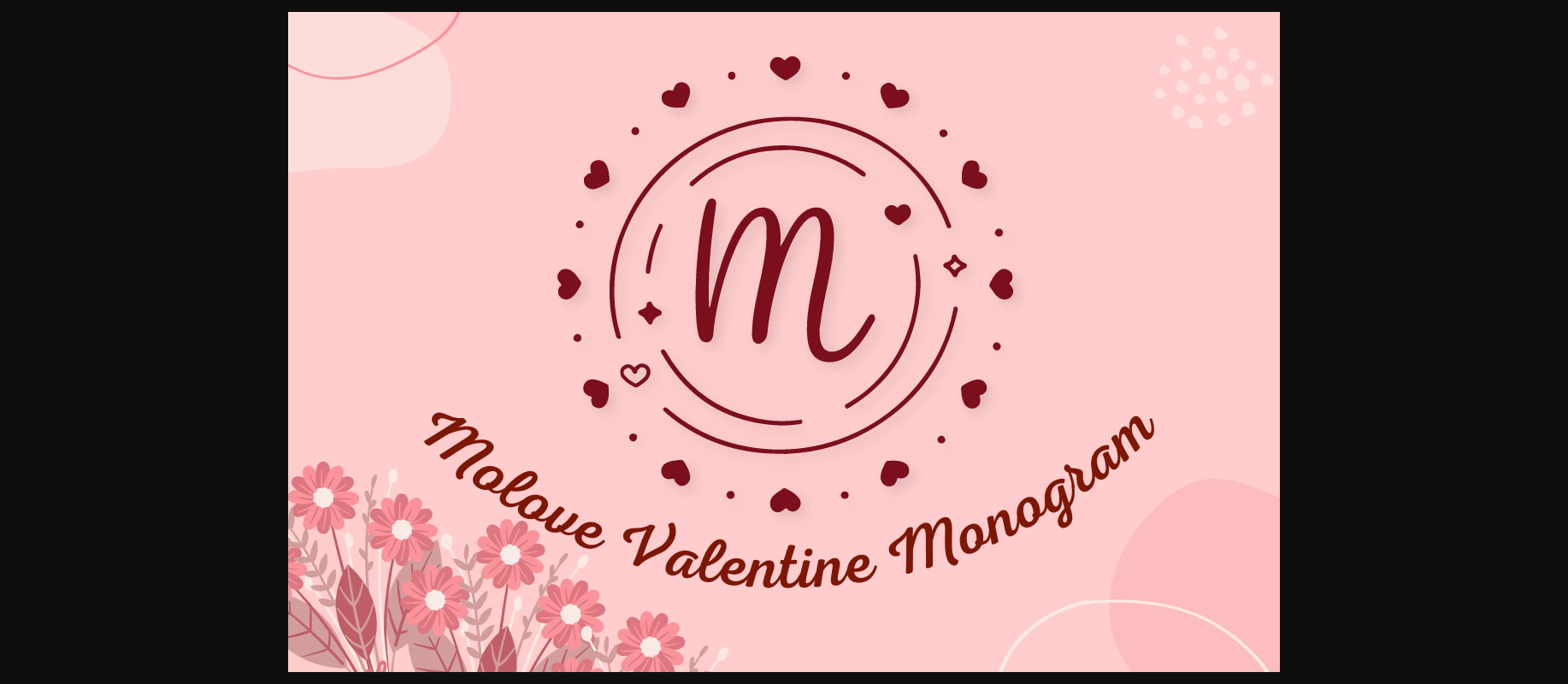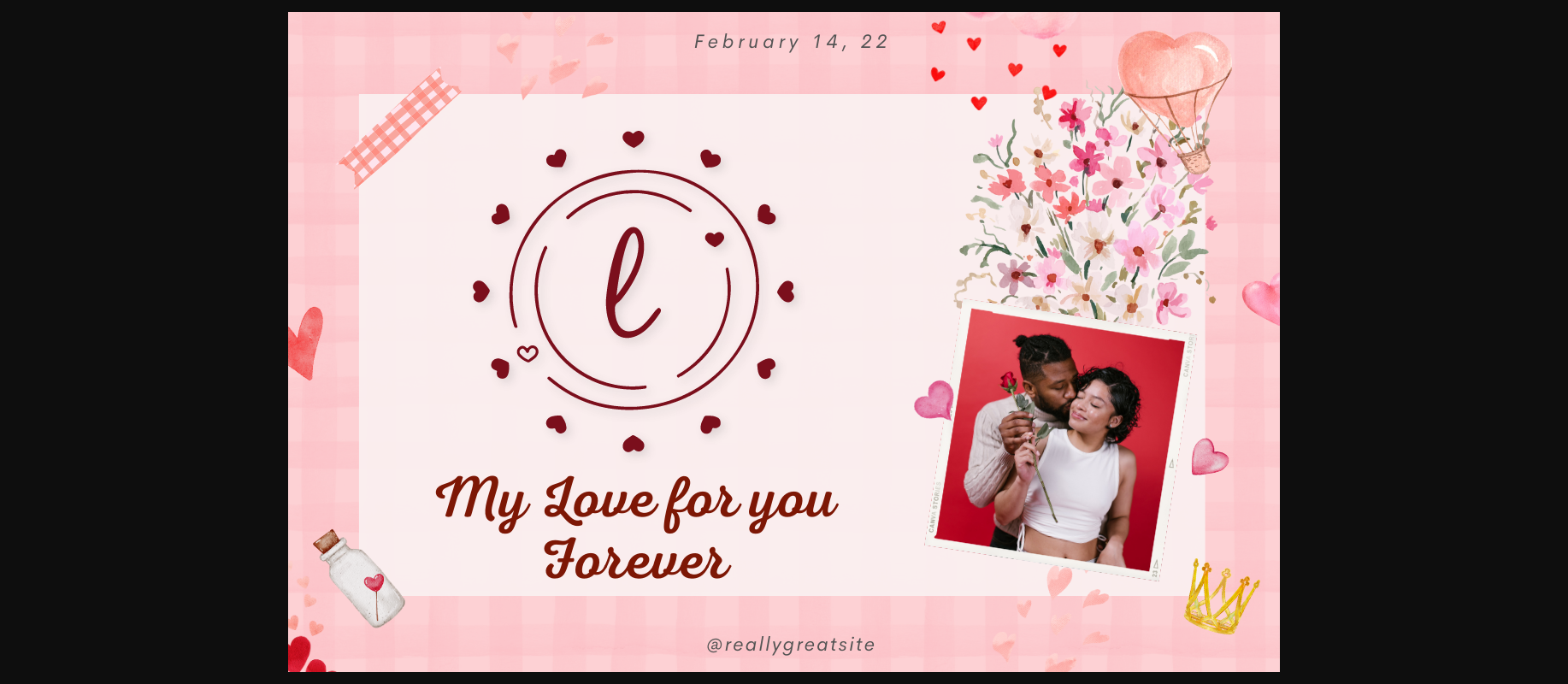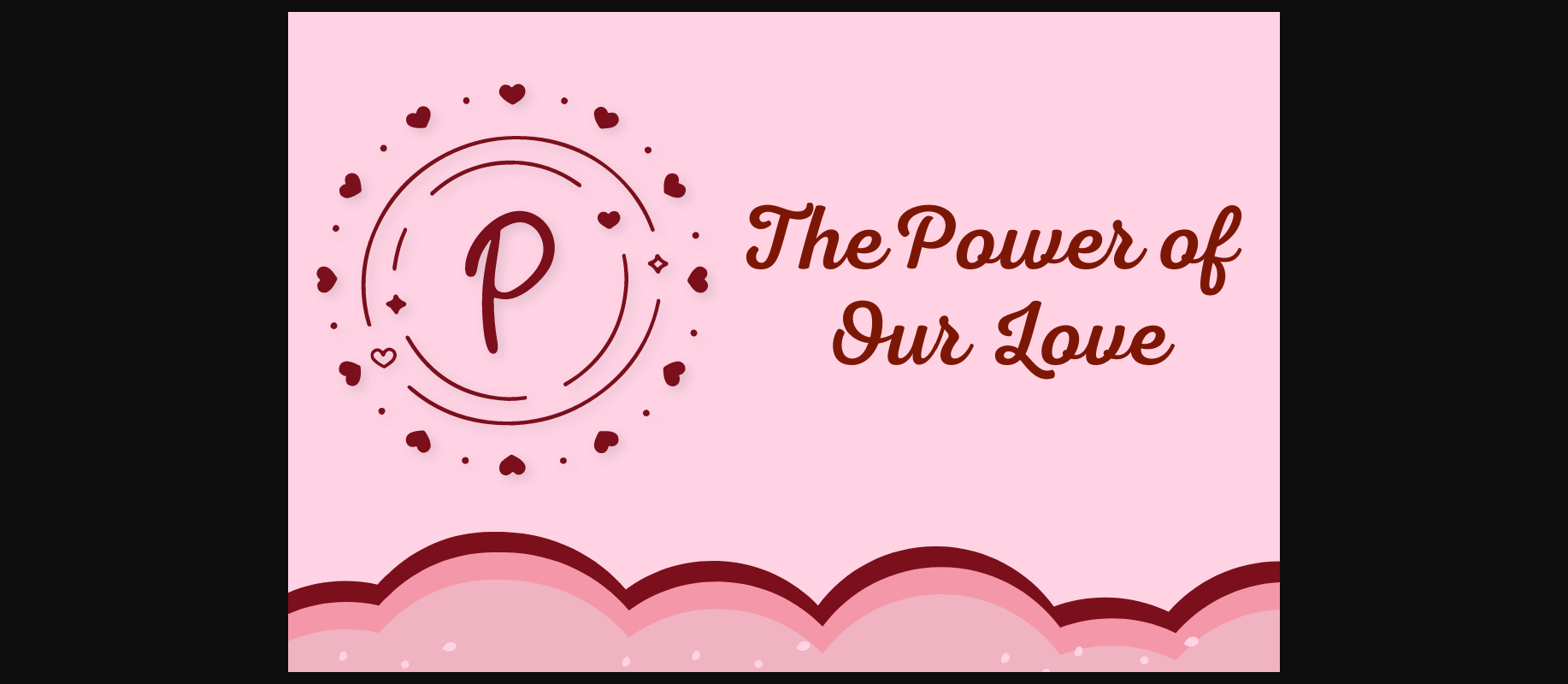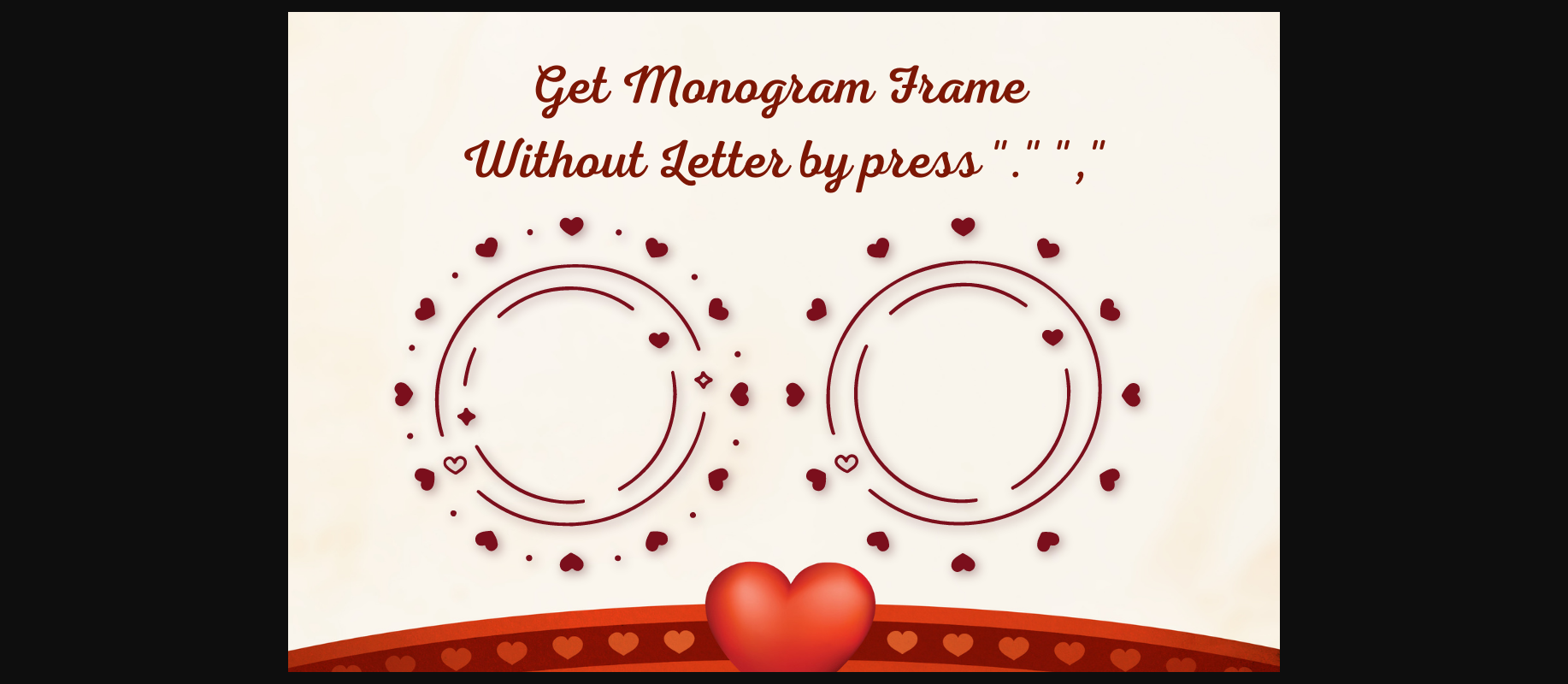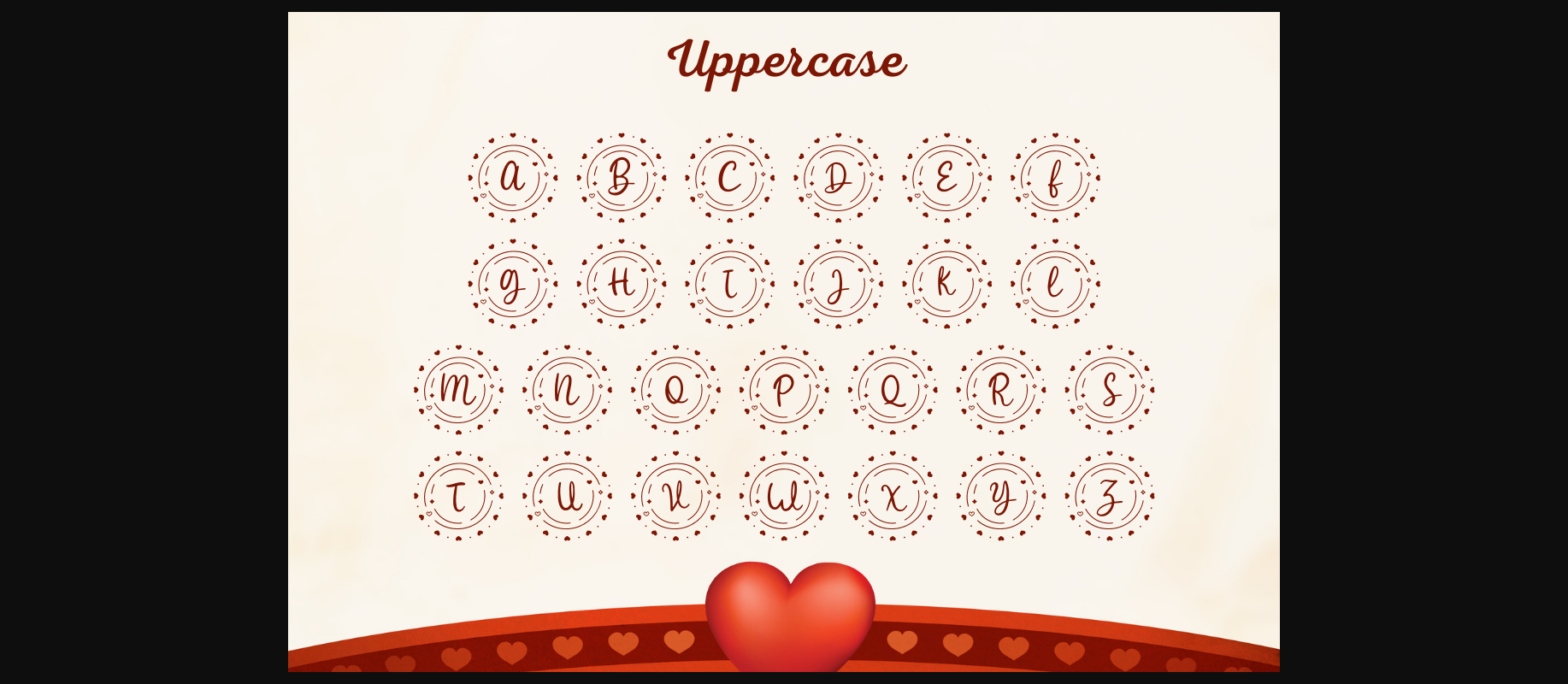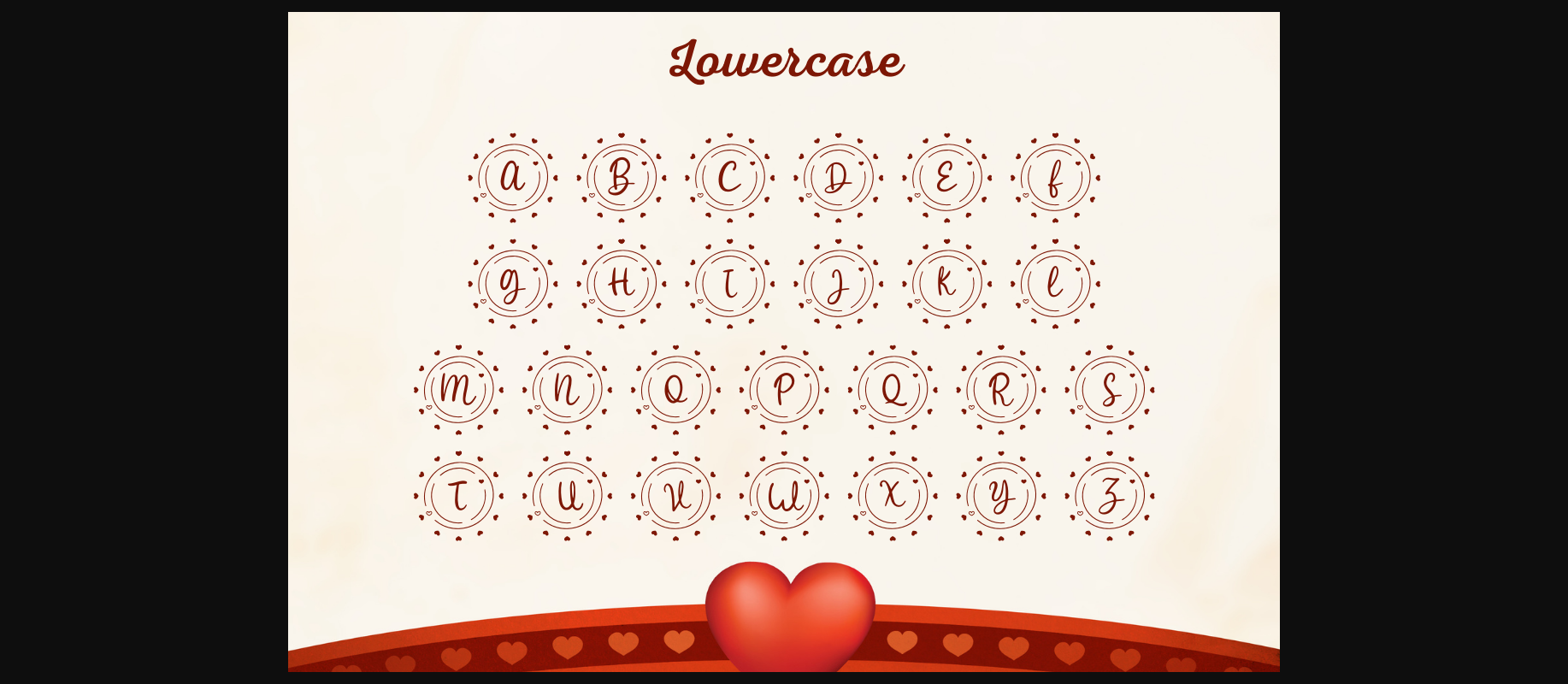
About Molove Valentine Monogram Font
Molove Valentine Monogram is a Cute Valentine decorative font. Fall in love with it, and use it to create beautiful designs for your special occasions, business designs, logos, branding, social media posts, and wedding cards.
Comes in 2 styles.
Just simply change between uppercase and lowercase to see the different styles!